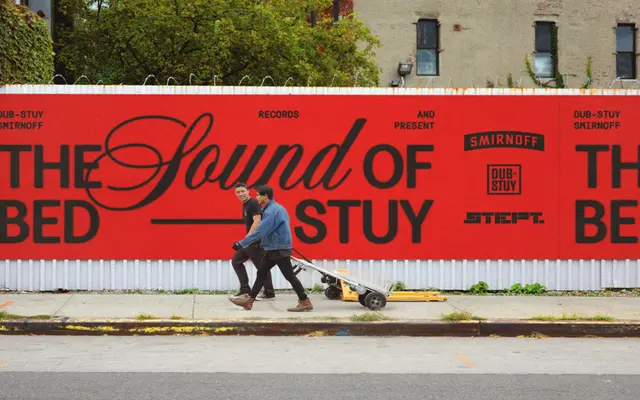
Dolcetto
The Designers Foundry · Drew Melton
A flowing connected script by letterer Drew Melton, offered in three weights with stylistic alternates for decorative and branding work.
Designed by graphic designer and letterer Drew Melton, Dolcetto is a connected script typeface positioned at the more formal, ornate end of the genre. Three weights from Light to Bold each include stylistic alternates, giving designers flexibility without straying from the face's calligraphic character. With 319 glyphs and broad Latin coverage spanning over 60 languages, it suits logotype work, packaging and event collateral where an air of refinement is needed.
Dolcetto is described as flowing from letter to letter with an air of opulence, placing it firmly in the connected script category designed for elegant, decorative use.